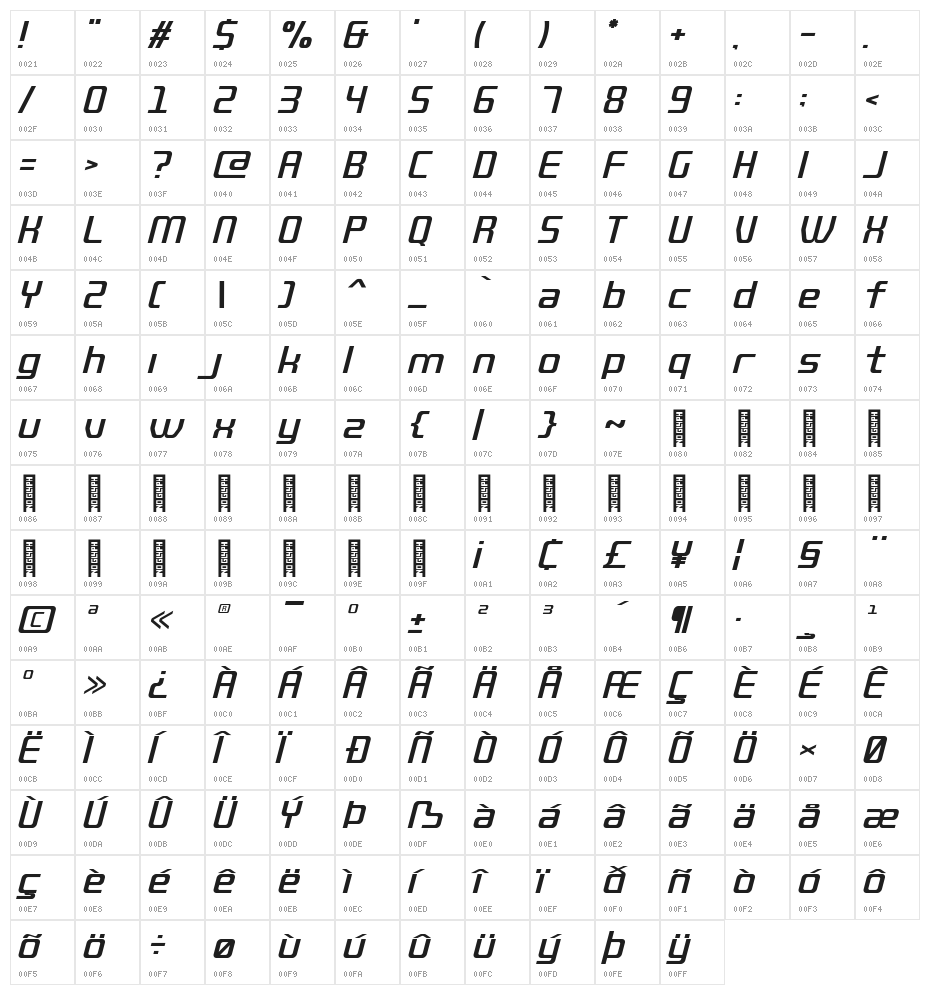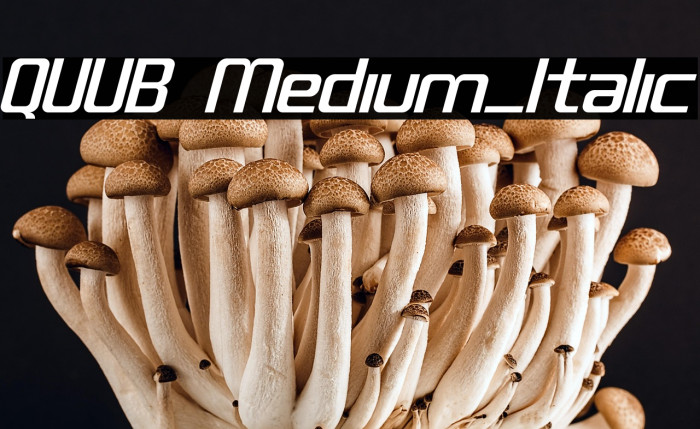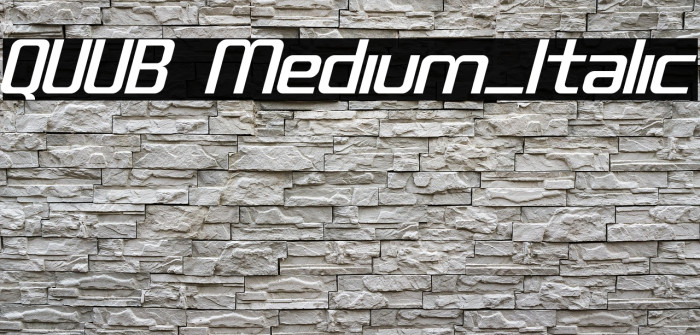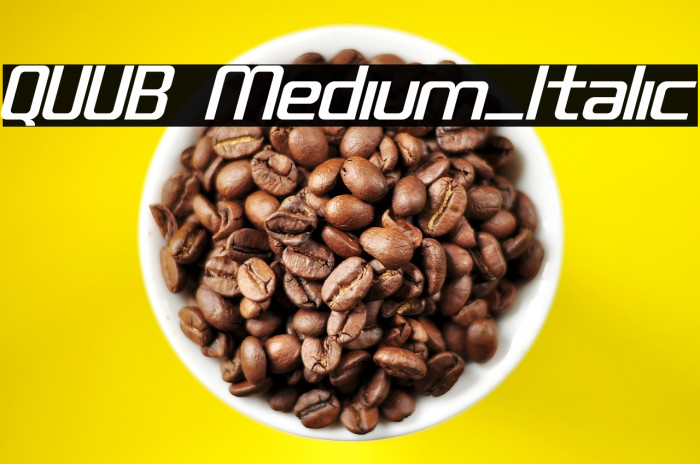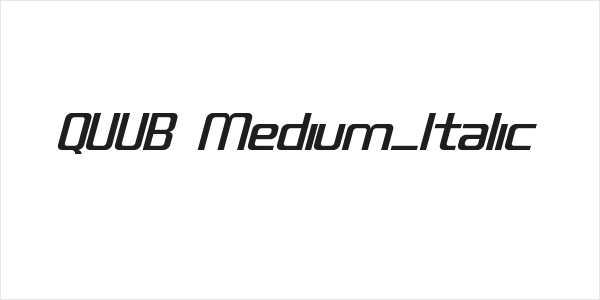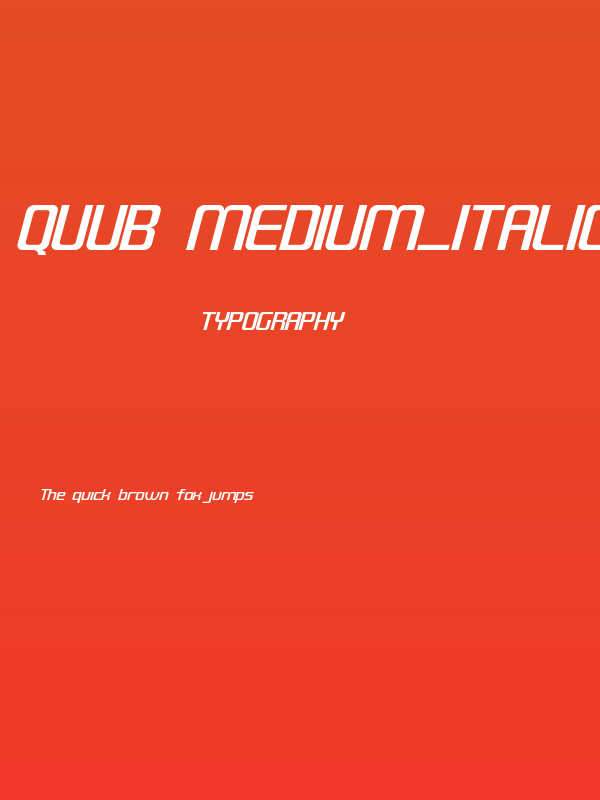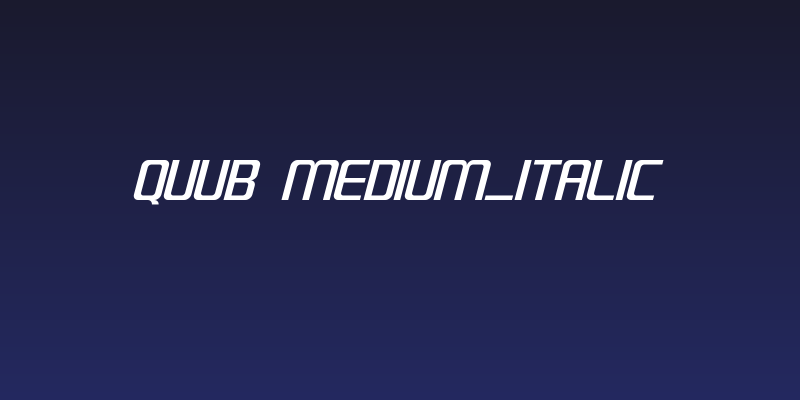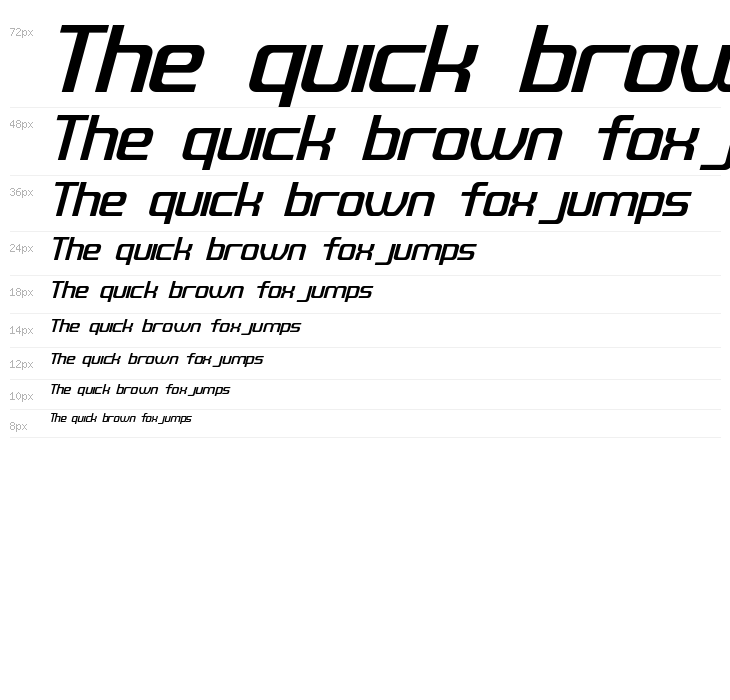
QUUB Medium_Italic Font
QUUB Medium_Italic Description
This font features a sleek, modern design with a distinct italic slant, giving it a dynamic and forward-moving appearance. The characters are crafted with a geometric precision, showcasing clean lines and a uniform stroke width that contributes to its contemporary aesthetic. The uppercase and lowercase letters maintain a consistent style, with rounded edges that soften the overall look. The numerals and special characters are designed to complement the alphabet, ensuring a cohesive visual experience. This font's unique style makes it suitable for projects that require a modern and energetic feel.
| Proposed Projects | Ideal for branding, advertising, sports team logos, and tech-related designs. |